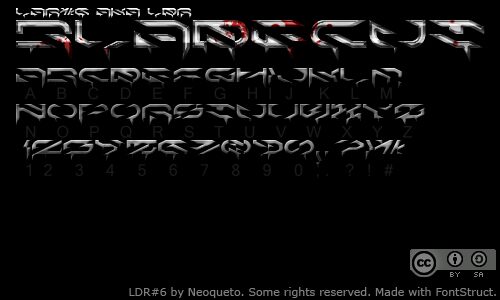
LDR#6 Regular
LDR#6 or LDR BLADECUT - an another techno font. One guy at FS said: "The improbable meeting between High Tech and Bloody Gore." and I totally agree with him, it was my target to achieve an effect like this. Free, CC-BY-SA(http://creativecommons.org/licenses/by-sa/3.0/legalcode). For commercial or private use.